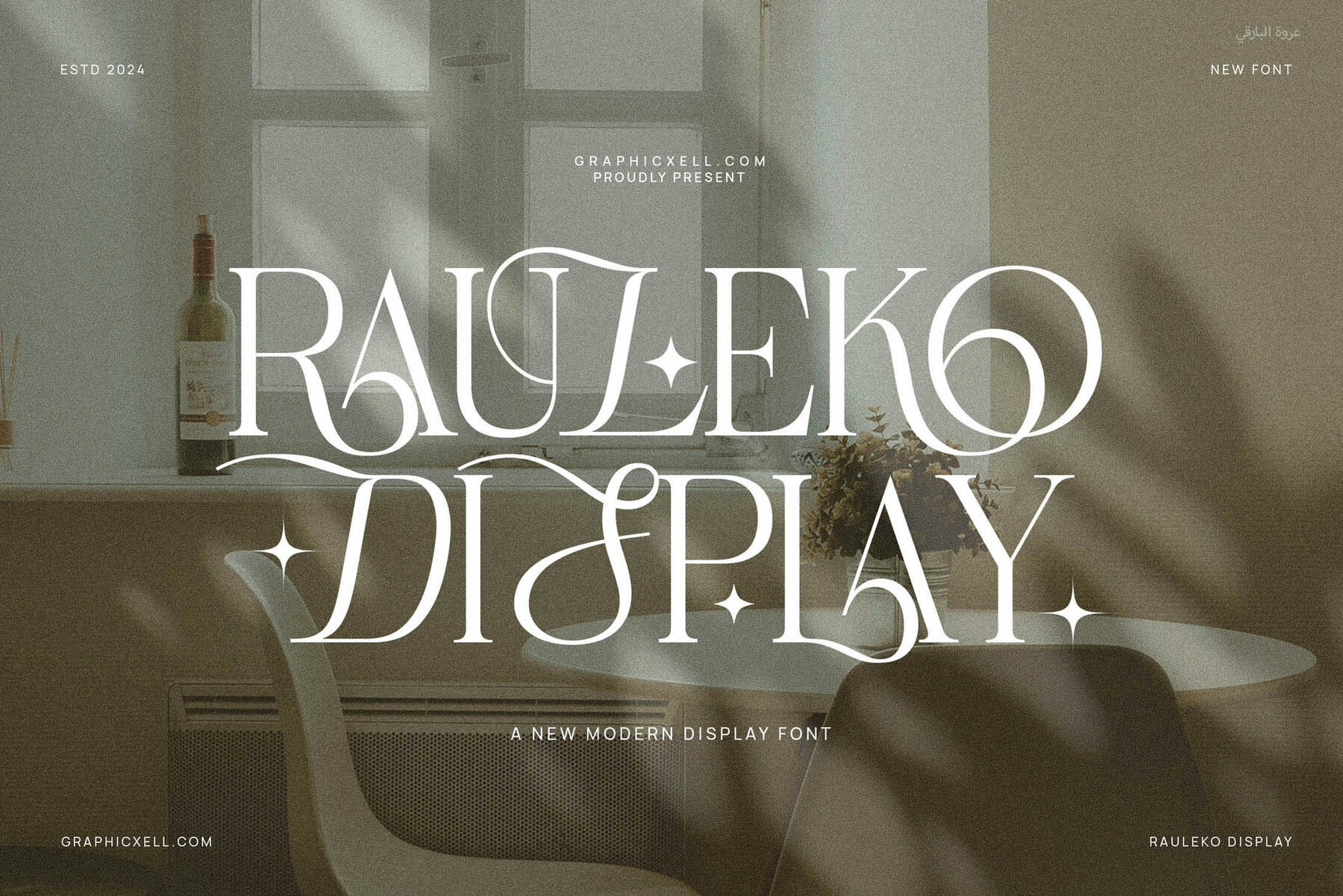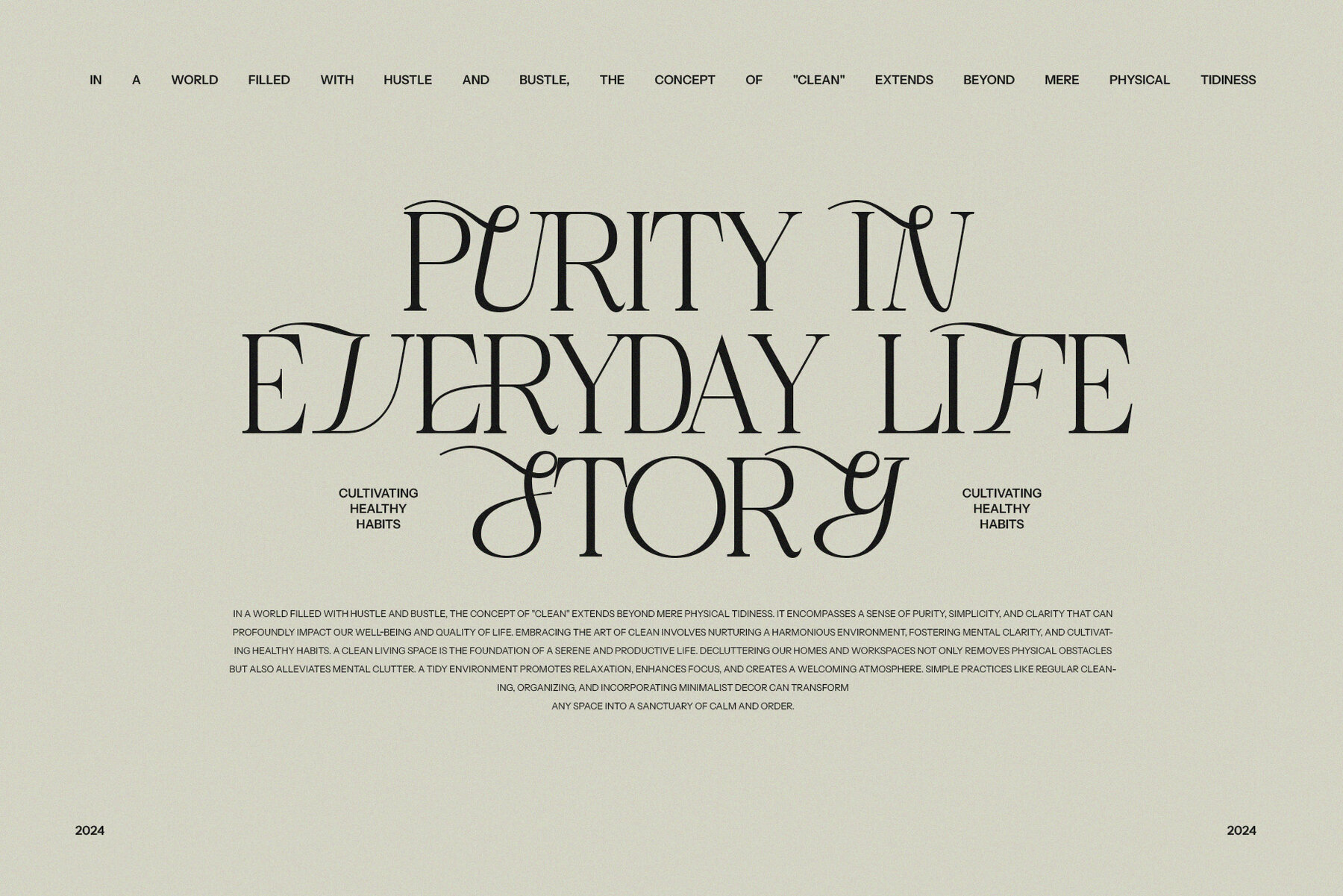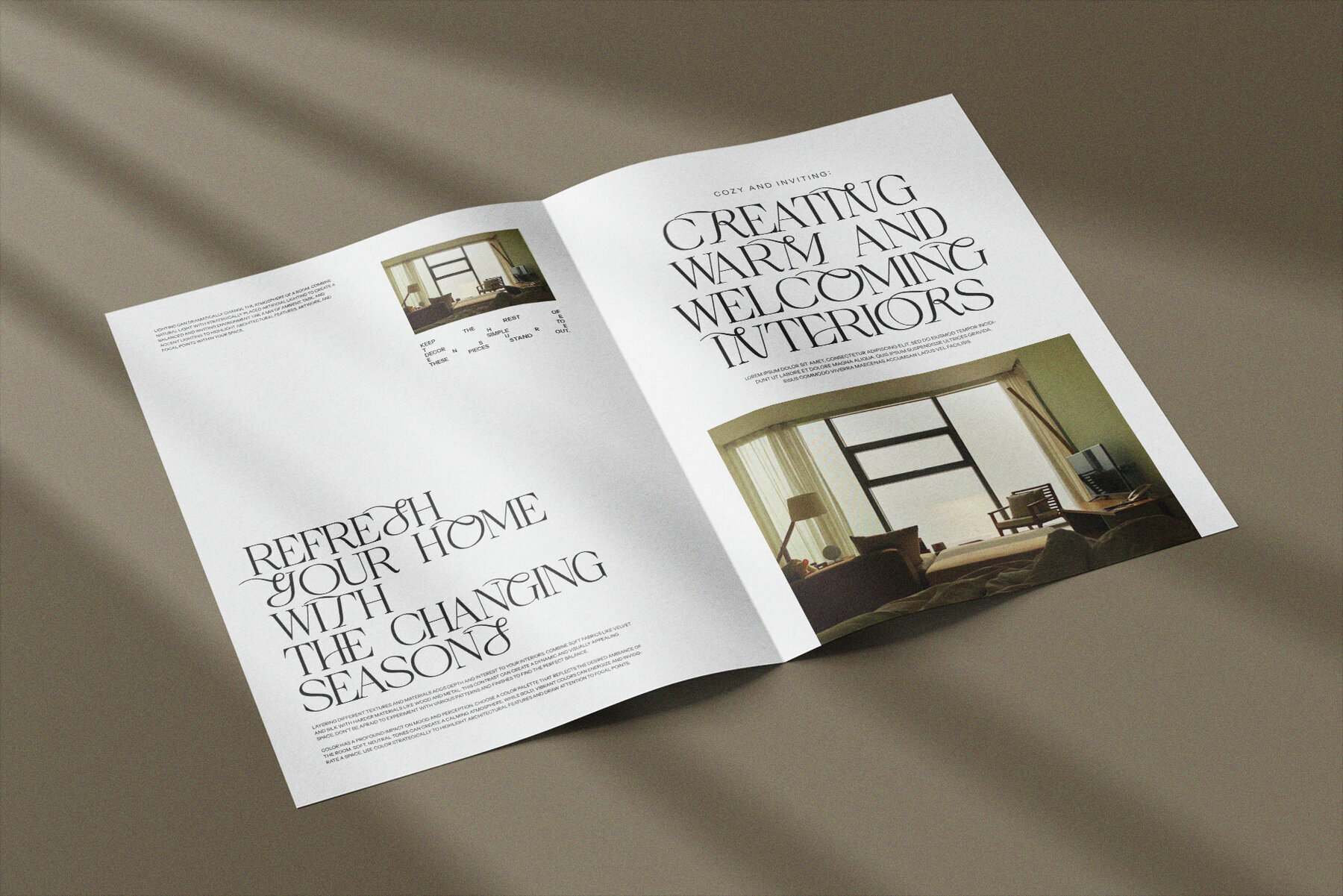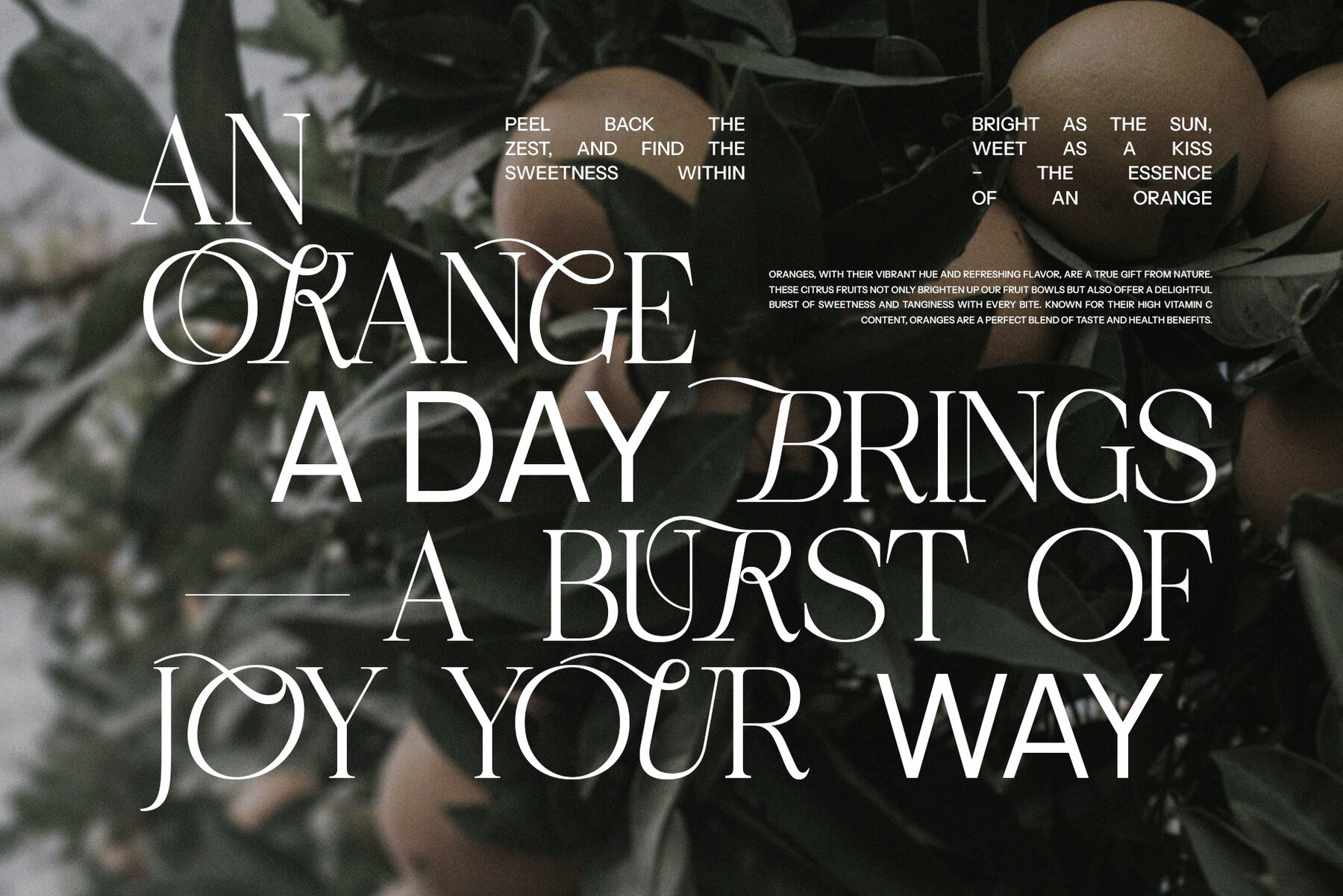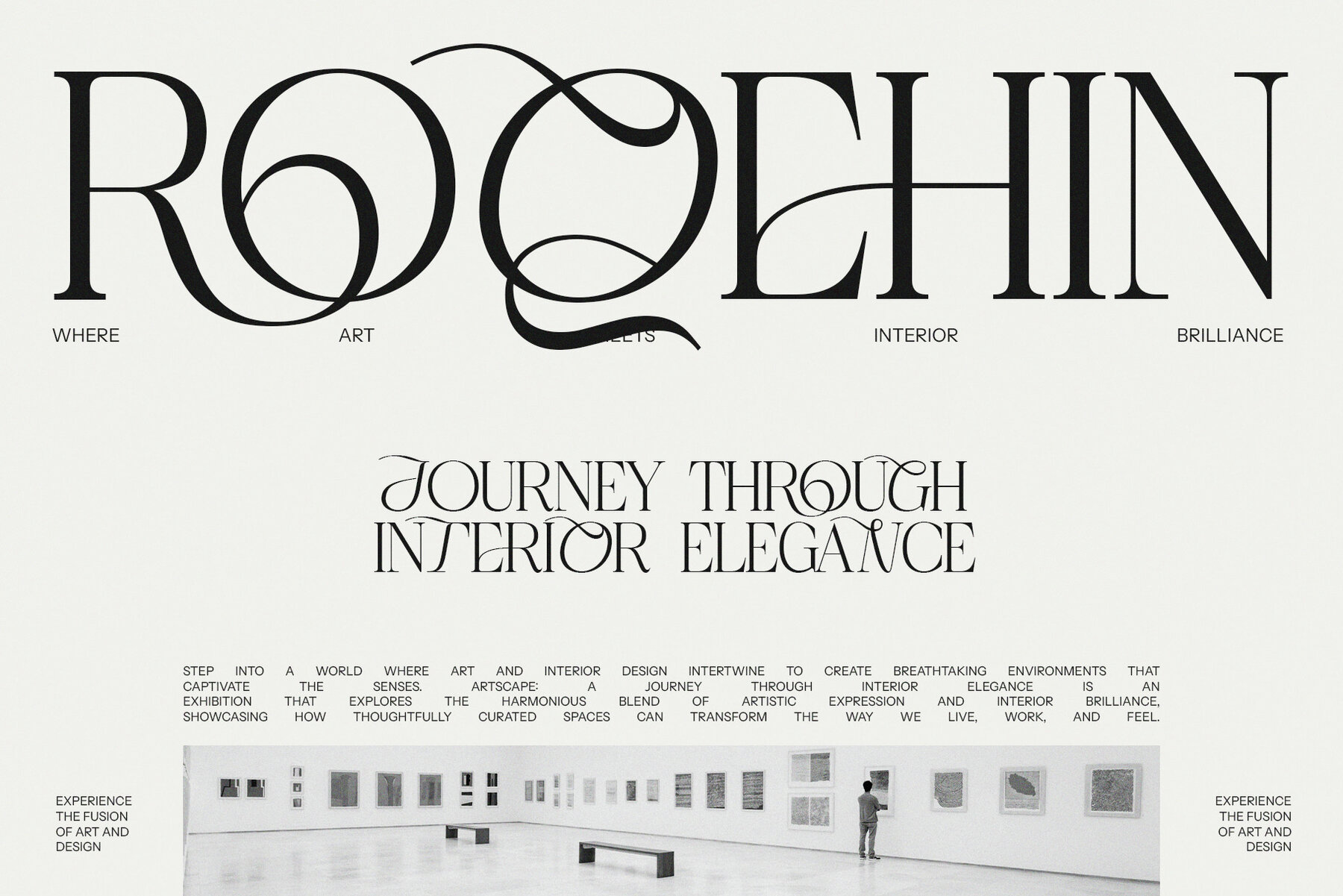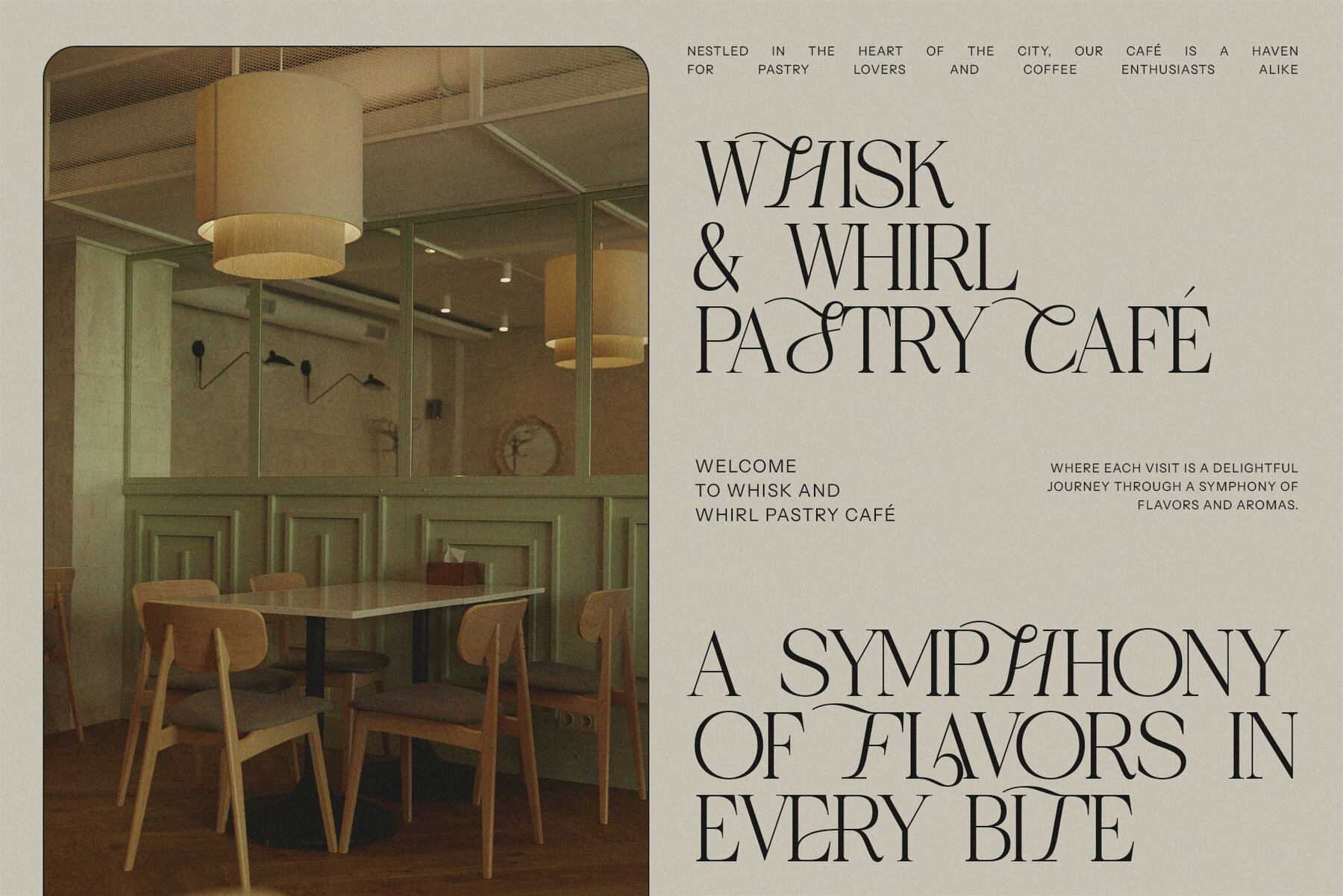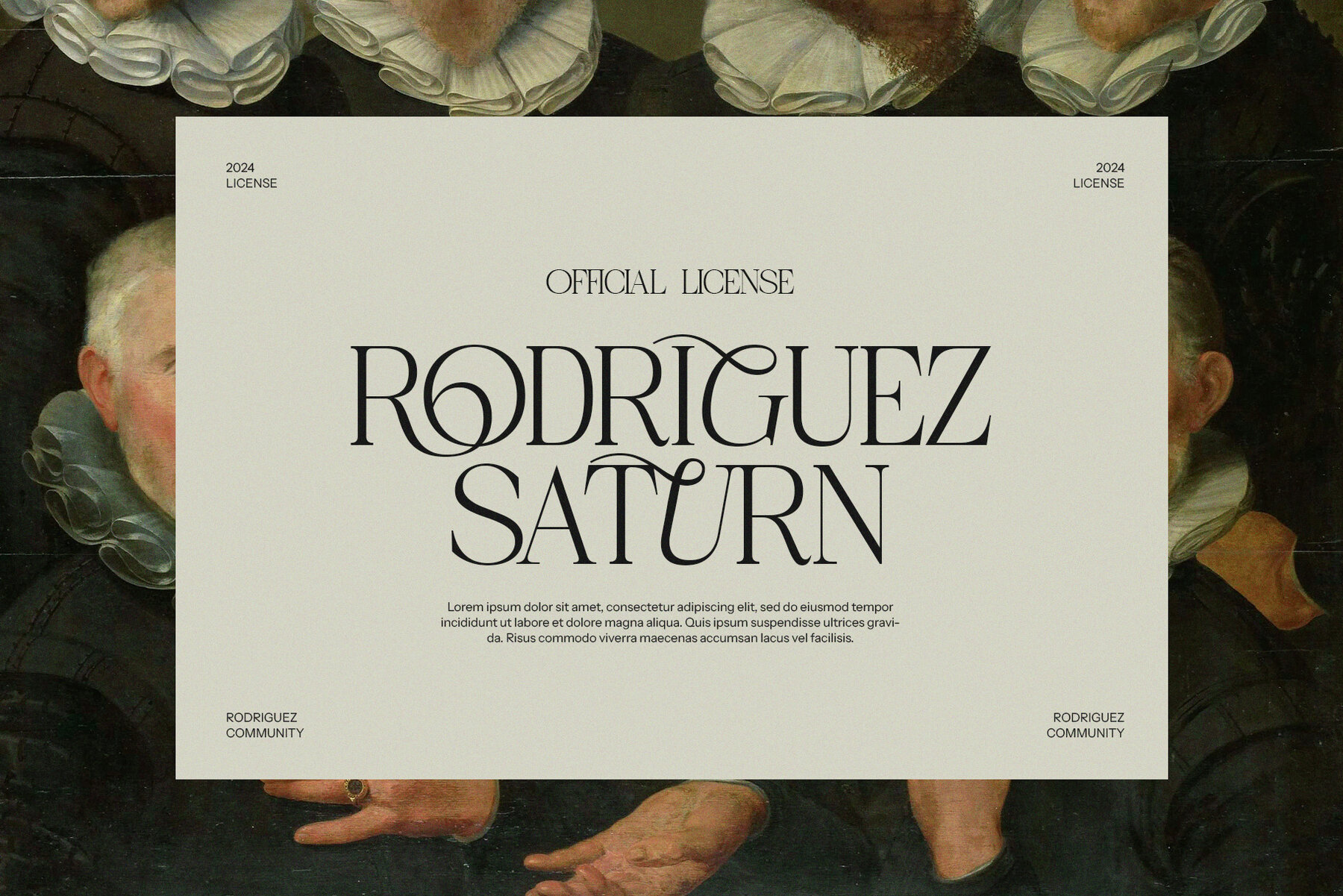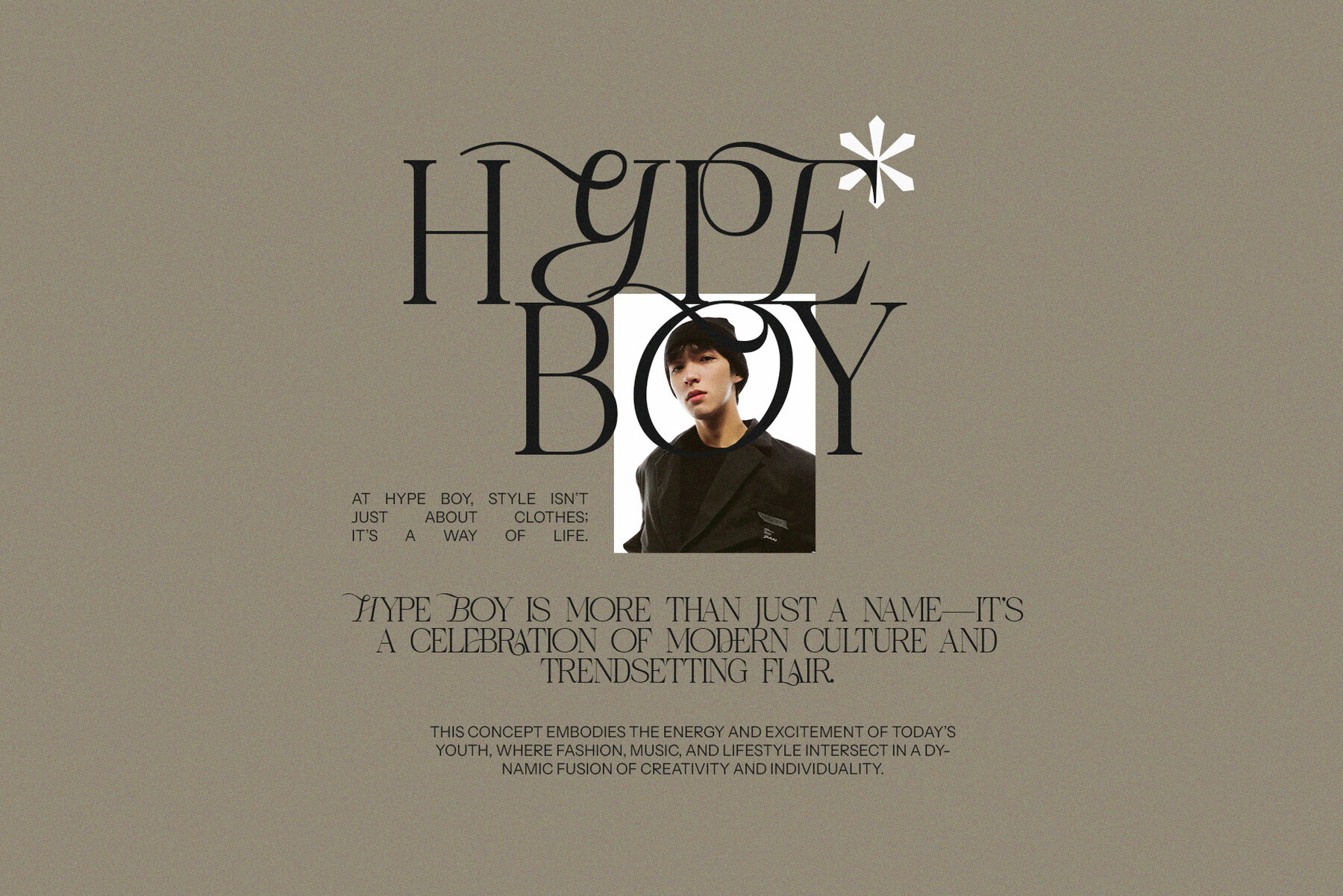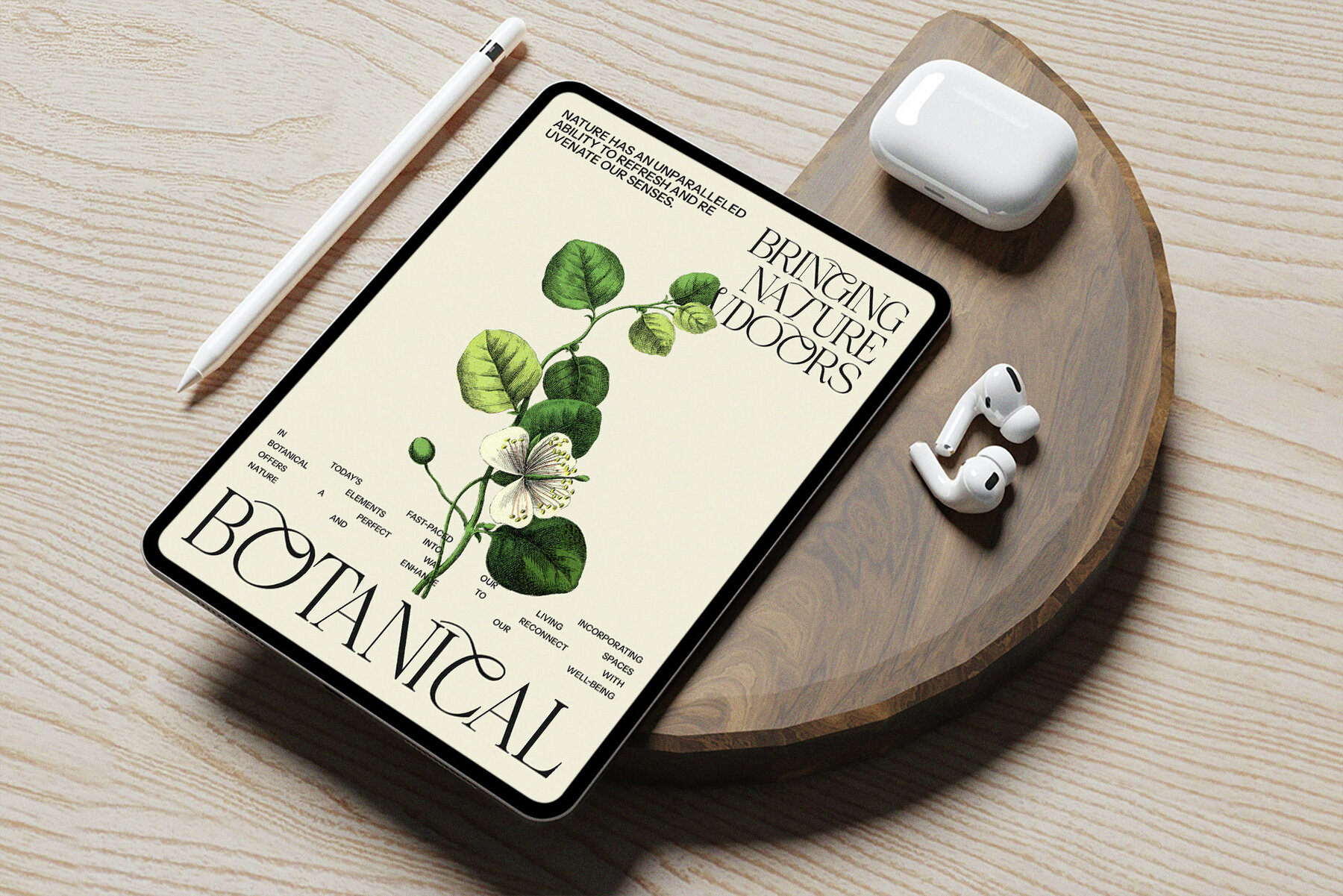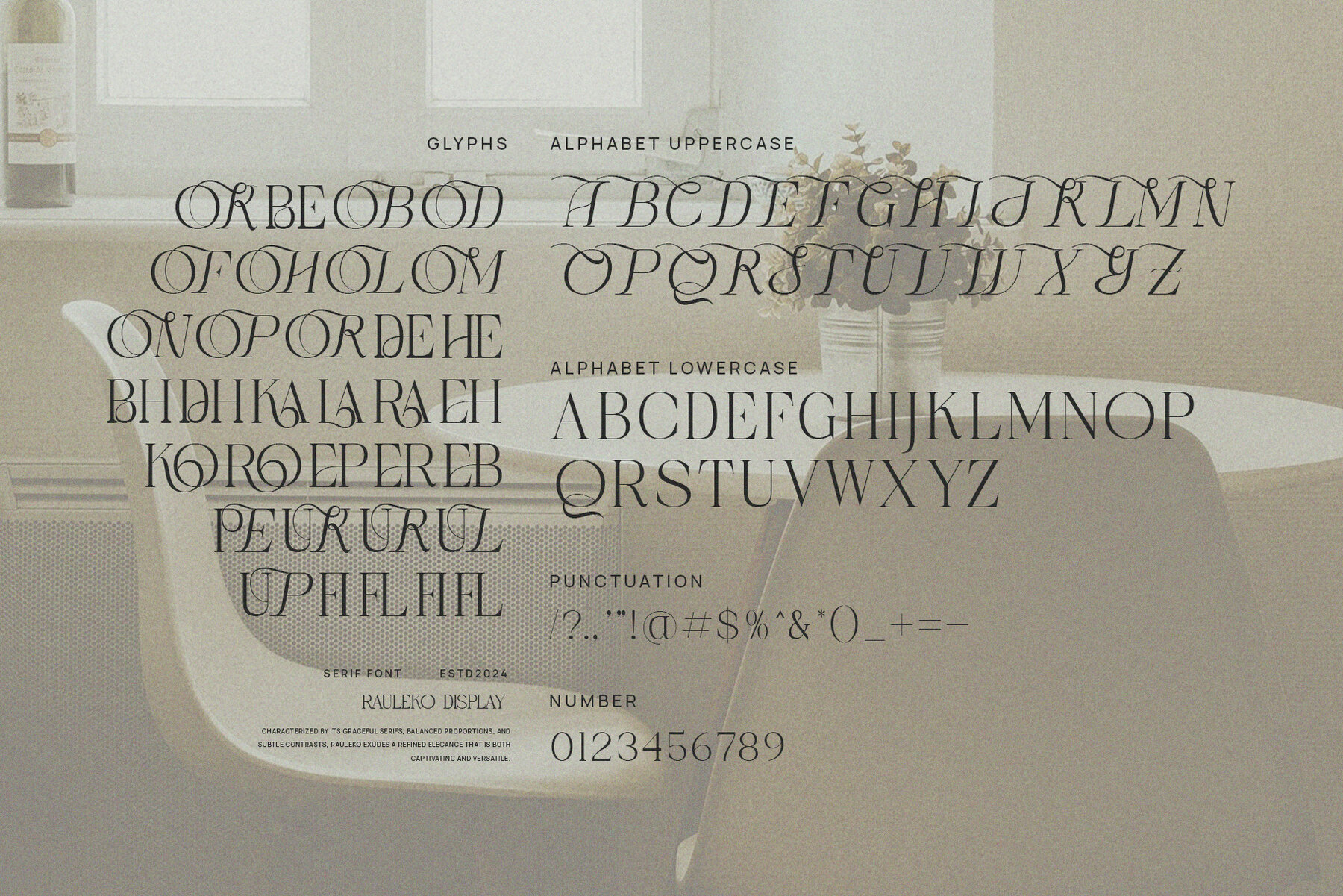
Rauleko Font
Rauleko Regular
Rauleko is a refined serif calligraphy font that embodies elegance and timeless charm. With its exquisite attention to detail, this typeface marries classic calligraphic influences with modern sophistication, making it both artistic and professional. Its fluid, sweeping curves and graceful serifs create a luxurious sense of flow, while clean lines and subtle structure deliver a balanced, contemporary feel. The font's beauty is visible in its carefully crafted alternates and ligatures, enabling endless customization opportunities, whether for logo design, wedding invitations, or high-end branding.
Perfect for projects demanding refinement and beauty, Rauleko suits a range of applications from fashion and beauty products to upscale hotels and film titles. Its versatility ensures a captivating presence in both digital and print formats. The elegant and legible design enhances websites and social media branding, and its sophisticated character provides a luxurious touch to printed materials. From intricate packaging designs to large-scale advertising, Rauleko effortlessly enhances any creative endeavor, adding a touch of romance, elegance, or prestige to your projects.